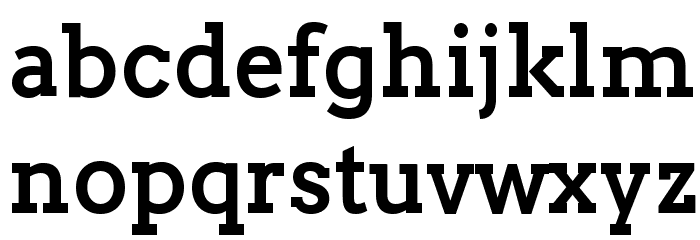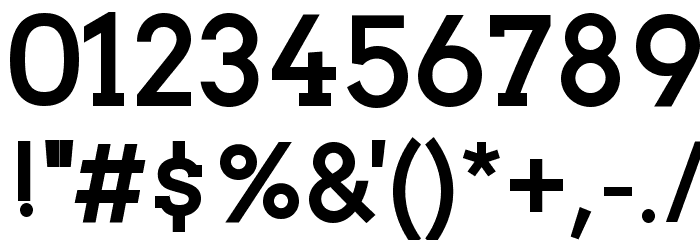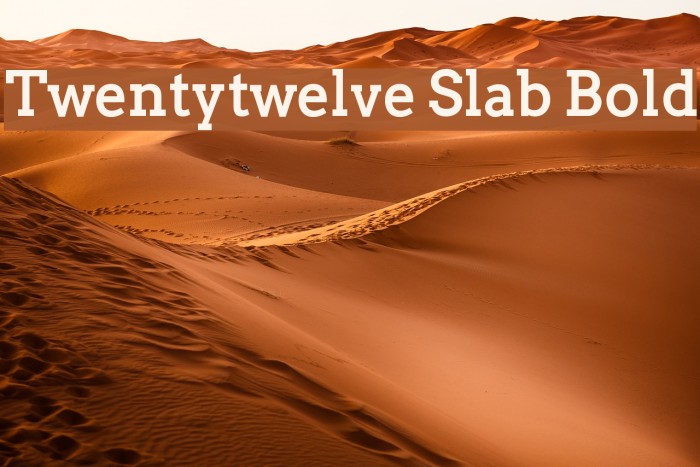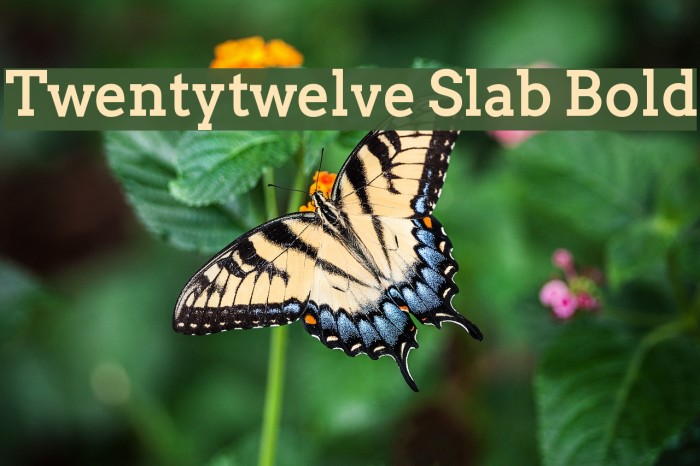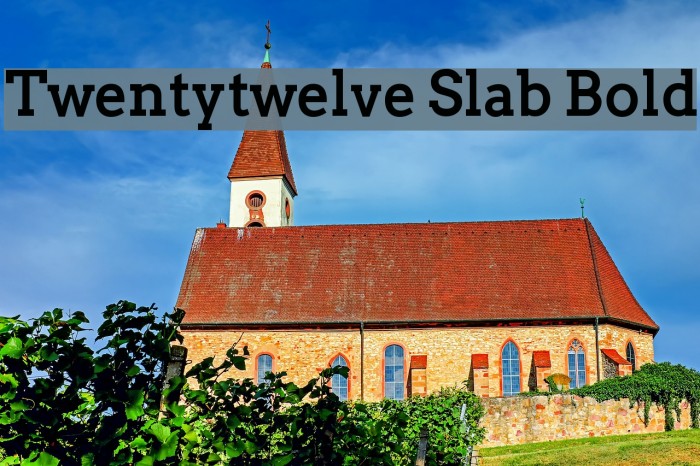
Twentytwelve Slab Bold Font
This font features a bold and robust slab serif style, characterized by thick, block-like serifs that give it a strong and authoritative presence. The letters are evenly spaced, providing a clean and organized appearance. The uppercase letters are tall and commanding, while the lowercase letters maintain a consistent weight, ensuring readability. The numerals are distinct and clear, making them suitable for various applications. Special characters are well-defined, adding versatility to the font. Overall, this font combines traditional serif elements with a modern boldness, making it suitable for impactful designs.
A bold slab serif font with strong, block-like serifs and clear readability.
- Proposed Projects: Ideal for headlines, posters, branding, and any project requiring a strong visual impact.